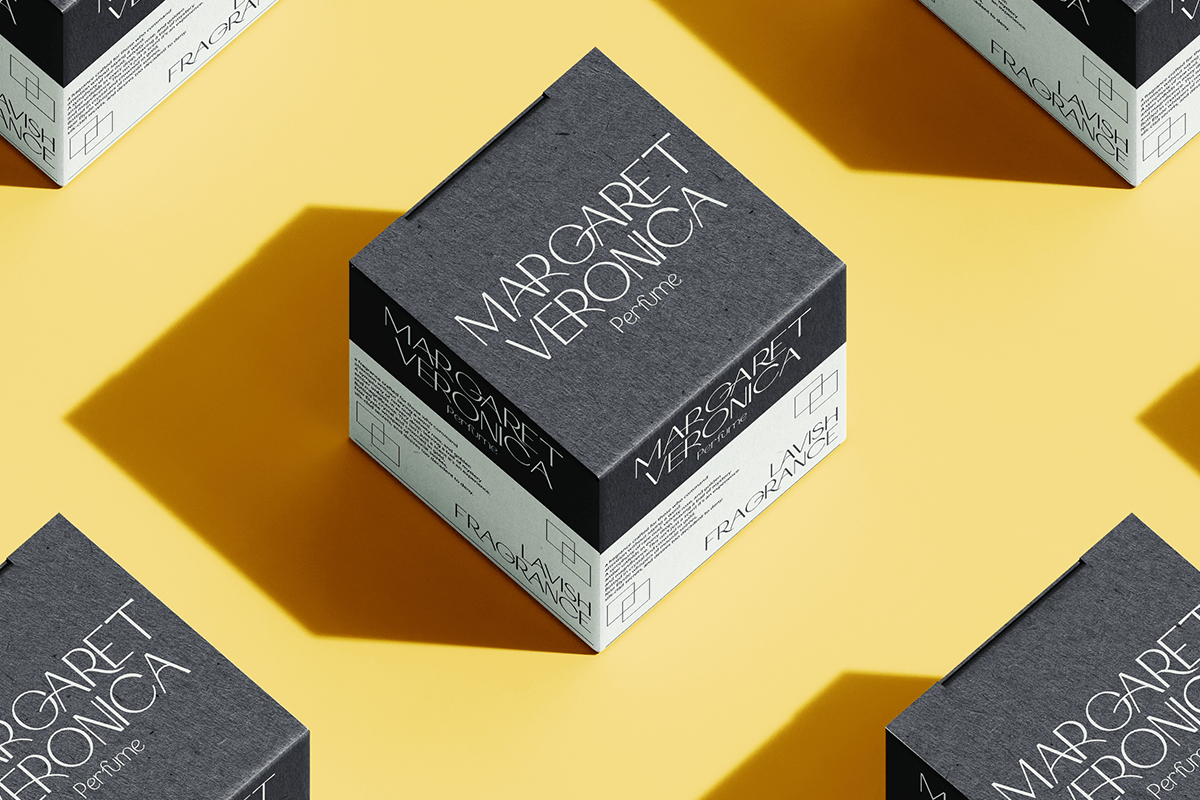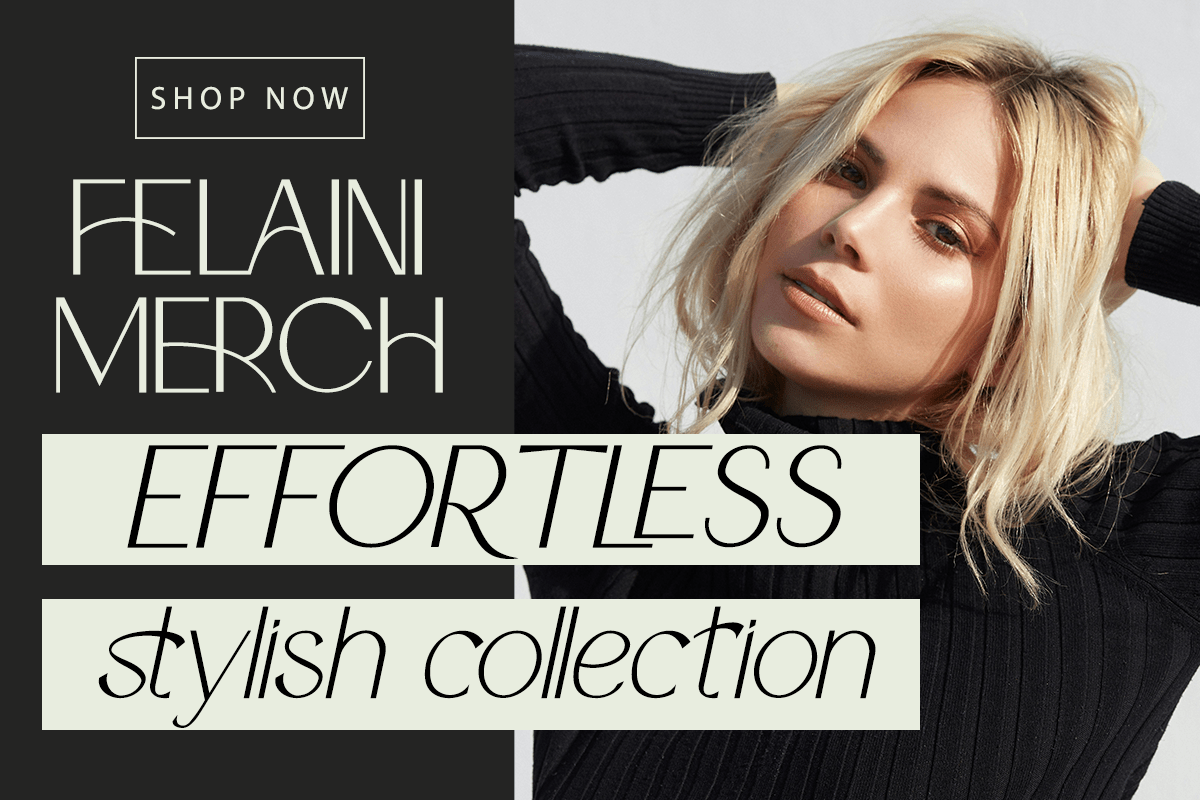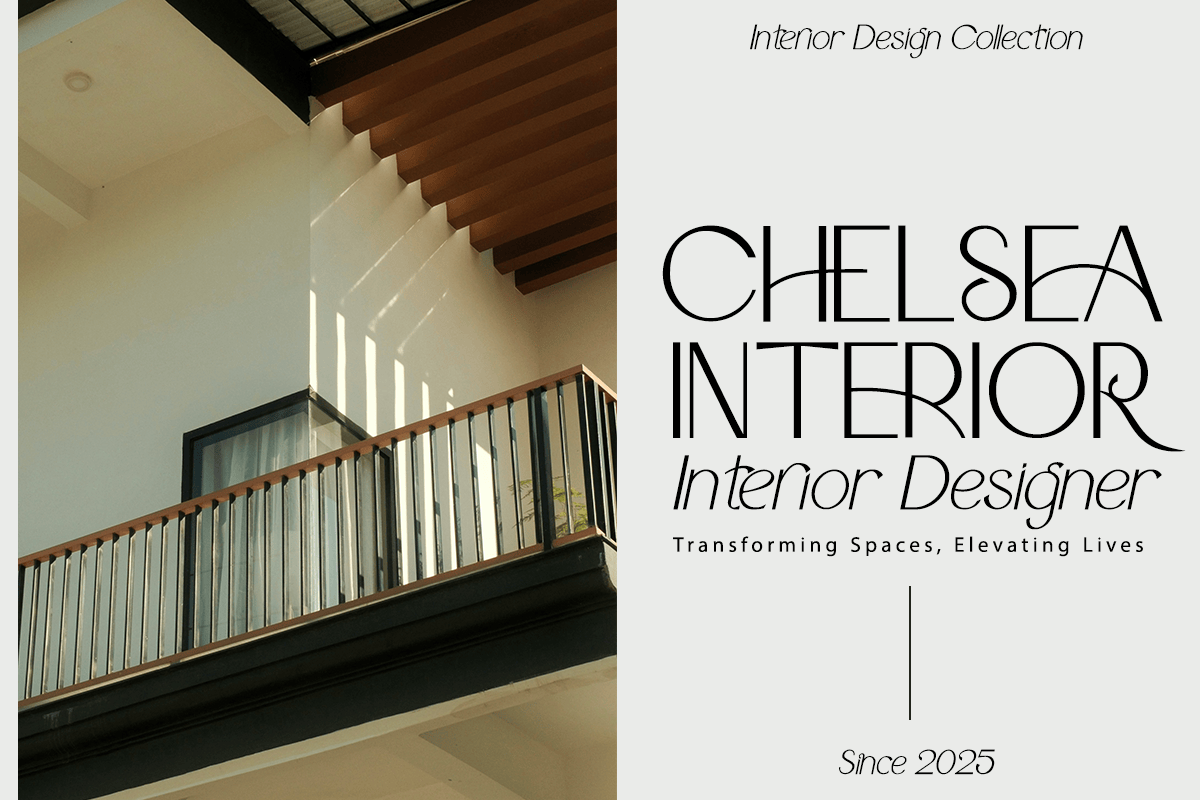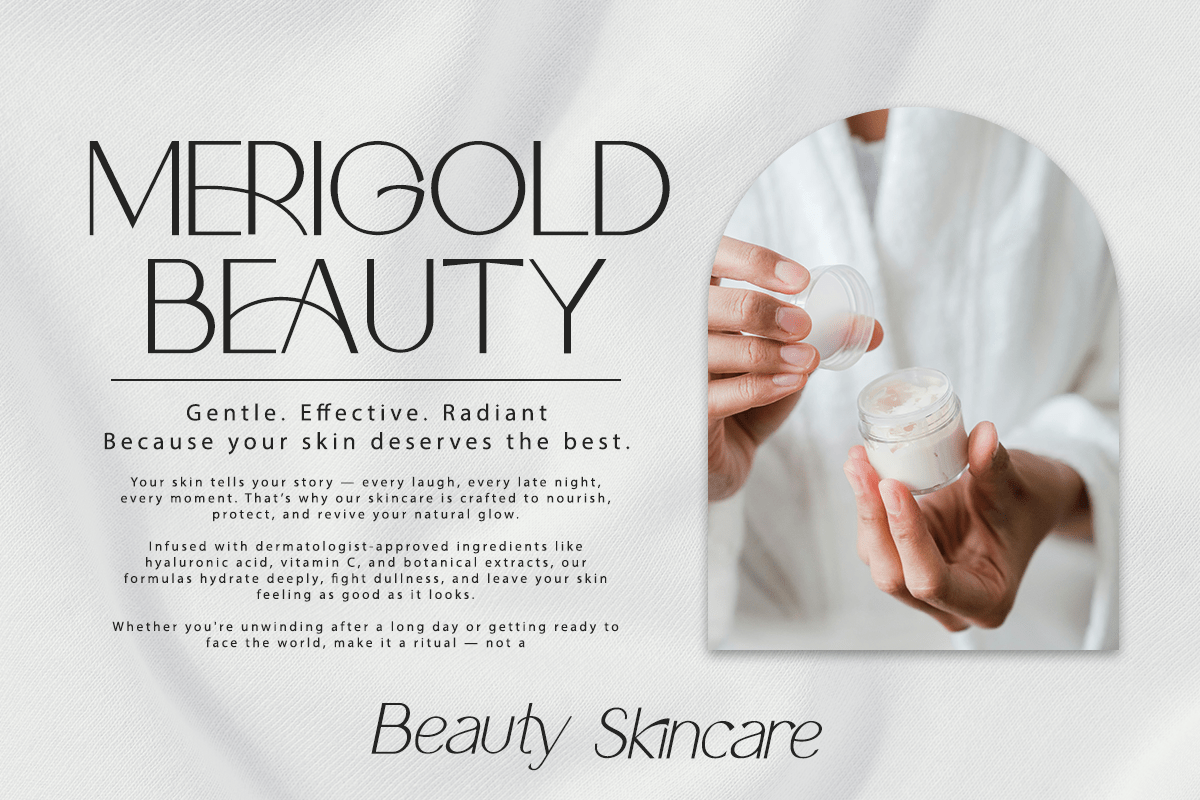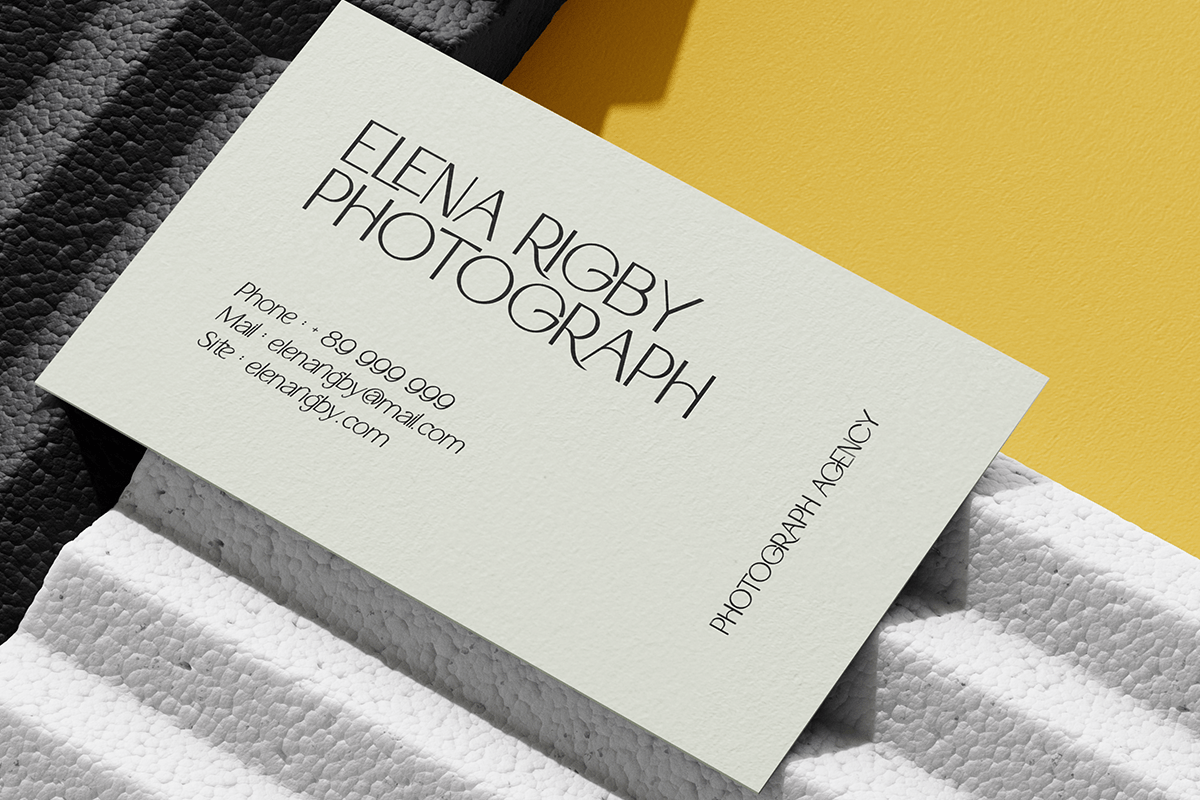
Logate – Modern Sans Serif Font
Logate is a modern cursive sans serif font that combines minimalist geometry with elegant handwritten flow. Designed with clean monoline strokes, graceful curves, stylish ligatures, and refined alternates, Logate delivers a contemporary aesthetic that feels sophisticated, light, and highly versatile. Its unique balance between modern sans structure and cursive personality makes it perfect for premium branding and editorial typography.
Ideal for branding, fashion labels, beauty products, skincare packaging, interior design, magazines, logos, business cards, signage, social media, advertising, lifestyle brands, and luxury marketing, Logate includes uppercase, lowercase, multilingual support, numerals, punctuation, stylistic alternates, and elegant ligatures. Every letter is carefully crafted to create smooth visual harmony while maintaining excellent readability.
Whether you’re creating modern logos, minimalist packaging, editorial headlines, elegant websites, or premium brand identities, Logate provides a clean and timeless appearance that elevates every project. Its refined character and contemporary styling make it an excellent choice for designers seeking a luxurious yet approachable sans serif font with distinctive personality.
– Stylistic alternates
– Uppercase, Lowercase & Ligatures